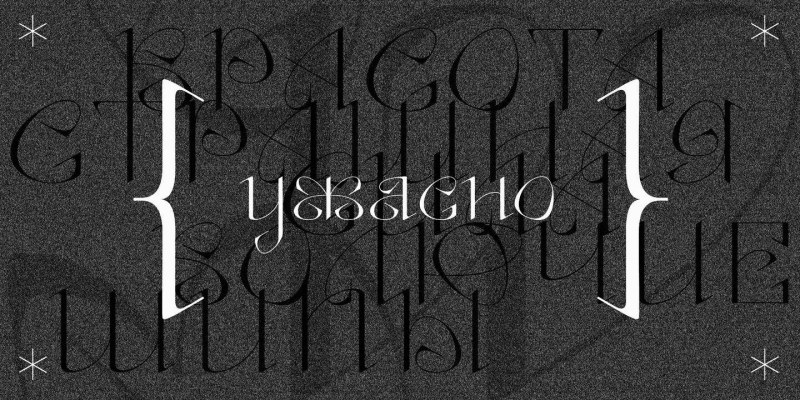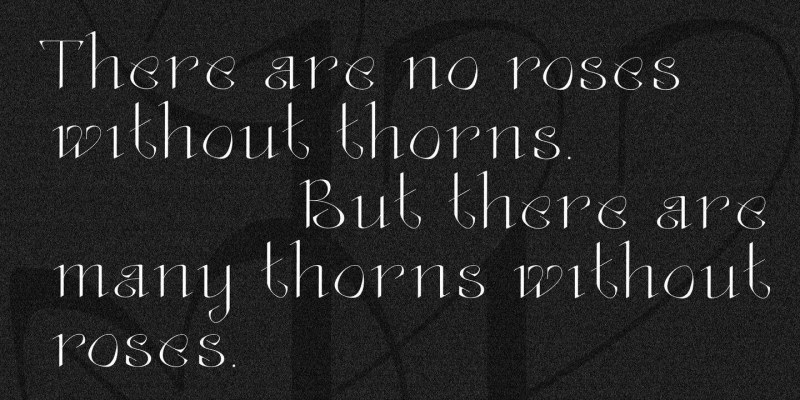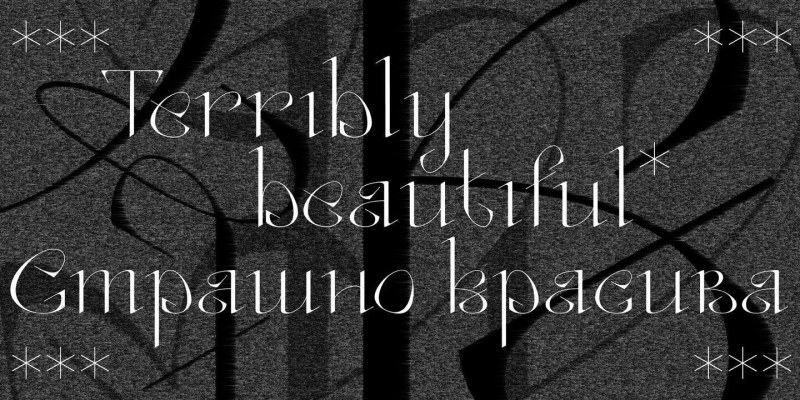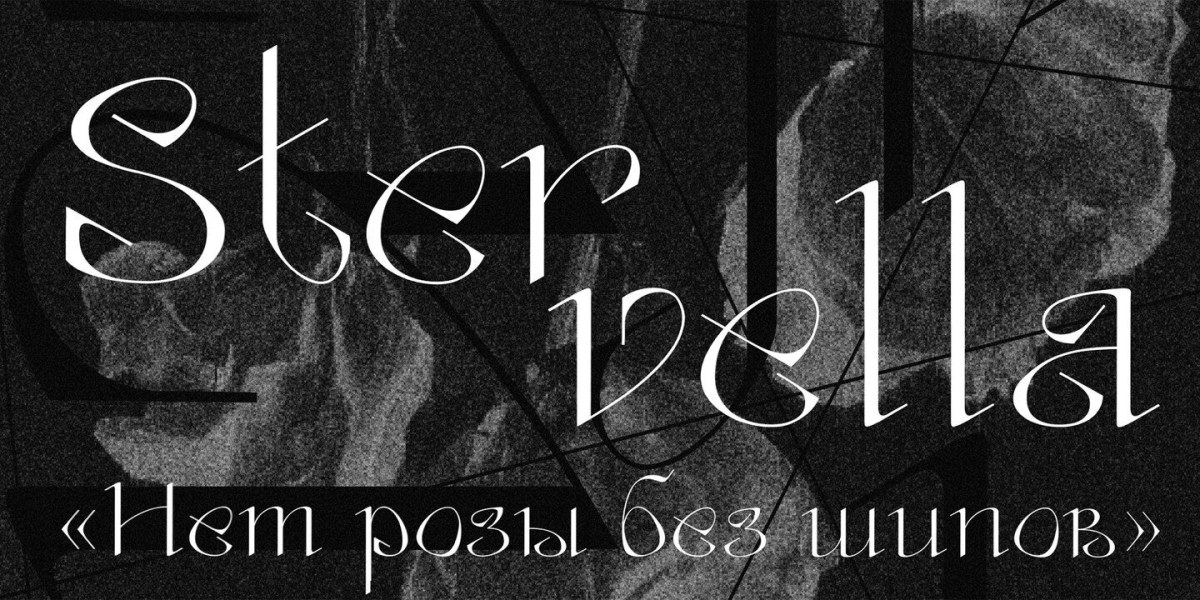
Stervella Font
Elegant and prickly; smooth and sharp; beautiful, but evil – Stervella – display typeface. Its serifs resemble the twisting branches and thorny thorns of a blackthorn, trying to prick neighboring letters. This font is inspired by the forms of ancient Uncial, combining antique with pointed gothic writing.
Stervella Font is built for size: event posters, hero headlines and billboard-style layouts.
High contrast display type like Stervella Font reads instantly in thumbnails and motion graphics.